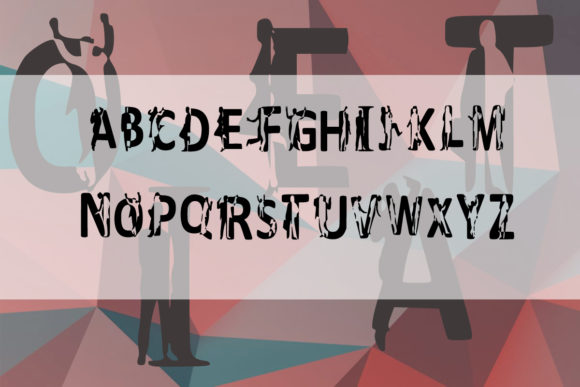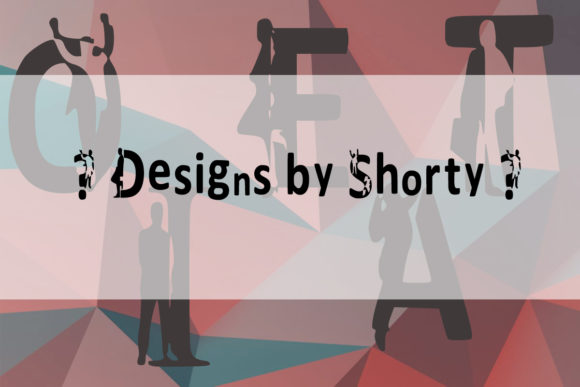
Silhouettesque Font – Free Download
Introduction to Silhouettesque Font
Silhouettesque is a fun and original decorative font, best suited for large headings.
Add it for book covers, banners, websites or any other bold design idea There is no limit to imagination.
Key Features of Silhouettesque Font